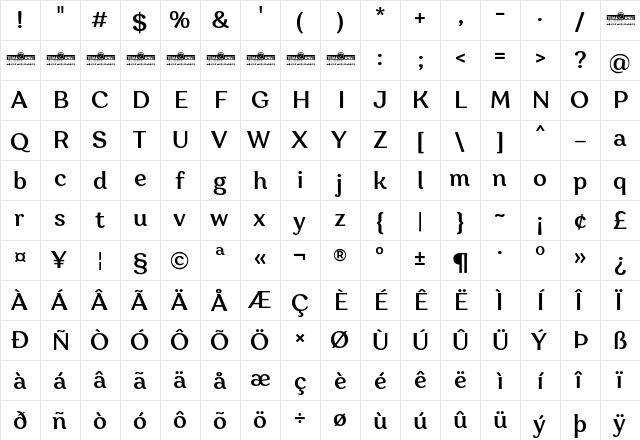
Garbata Trial Medium
| Foundry | Zetafonts |
| Designer | Francesco Canovaro, Debora Manetti |
Design Context for Garbata Trial Typeface
Garbata Trial is a composed and adaptable typeface that performs quietly and consistently across a wide range of design contexts.